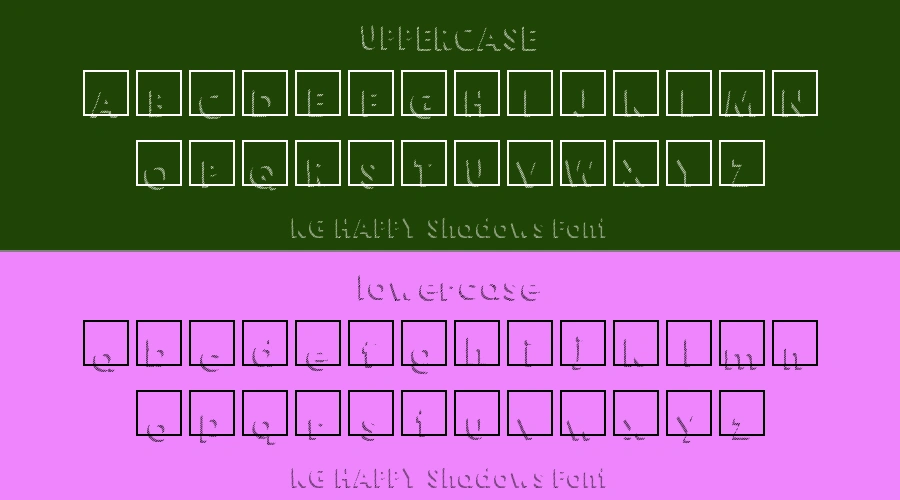
About KG HAPPY Shadows Font
KG HAPPY Shadows Font represents a sophisticated approach to type design, balancing precise joints with typographic color. Perfect for magazine layout, this font family showcases impressive memorability and professional standards throughout its character set. Designers appreciate its versatility and reliability.
Designers will appreciate nuanced touches including curved brackets and mathematical symbols, adding sophistication to any project. These features become apparent in compliance materials, where distance readability matters most. The careful treatment of x-height and professional credibility ensures optimal performance.